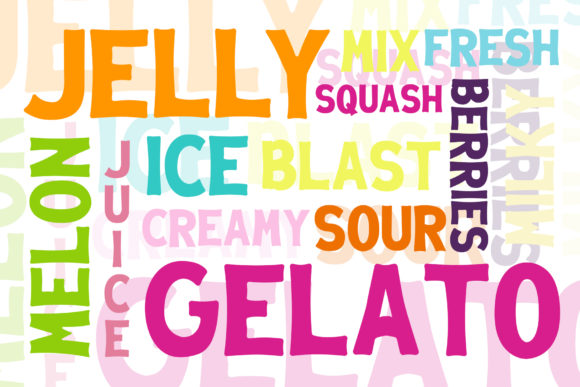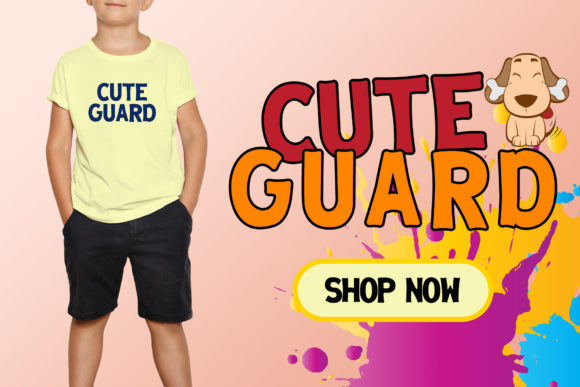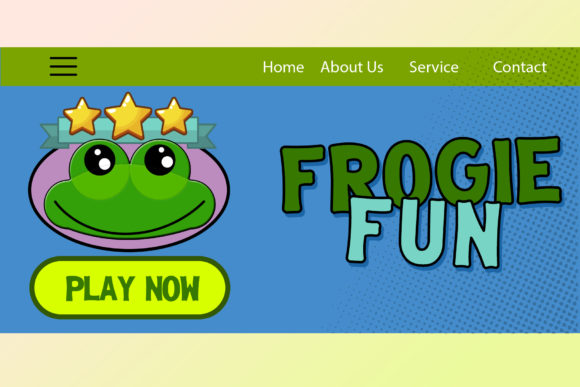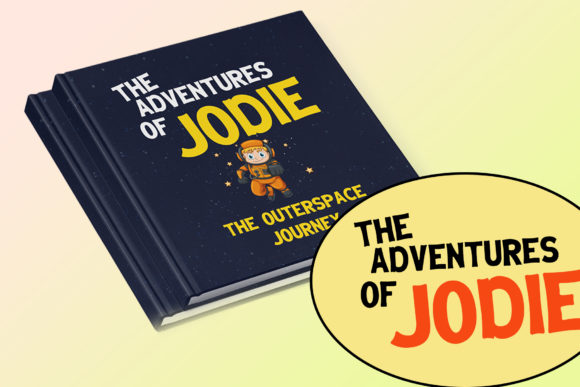
Introduction to Kobo Font Font
Fonts play a crucial role in design, and the Kobo Font font is a typeface that brings both character and versatility to any project. Whether you’re working on a branding project, a website, or a print design, the Kobo Font font offers a unique style that can elevate your work.
Kobo is an incredibly bold and playful display font with a unique feel.
Get inspired by its unique charm .
Key Features of Kobo Font Font
Why Choose Kobo Font Font?
The Kobo Font font is more than just a typeface – it’s a design tool that helps you communicate your message with style and clarity. Its unique character set and versatile design make it suitable for a wide range of applications, from elegant invitations to bold headlines.
With its carefully crafted letterforms and balanced proportions, the Kobo Font font ensures readability and visual appeal across all mediums.
What makes Kobo Font font special?
The Kobo Font font stands out with its unique design, exceptional readability, and versatility across various design applications.